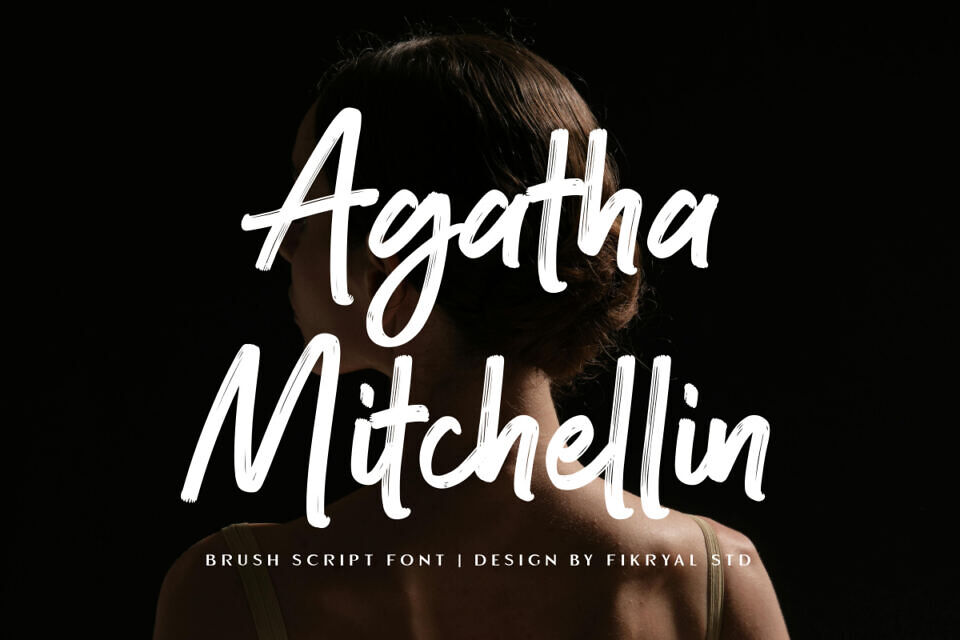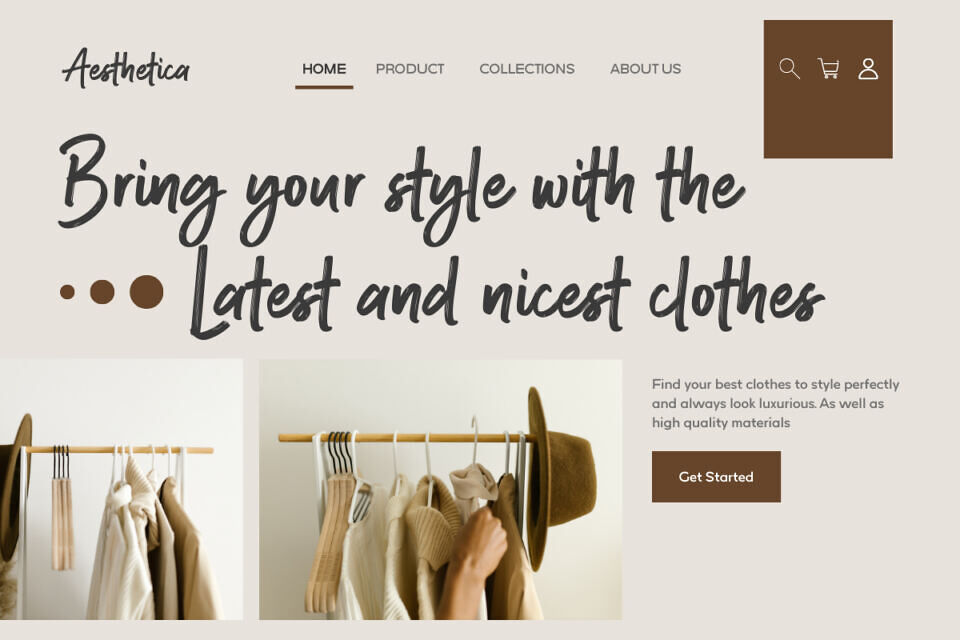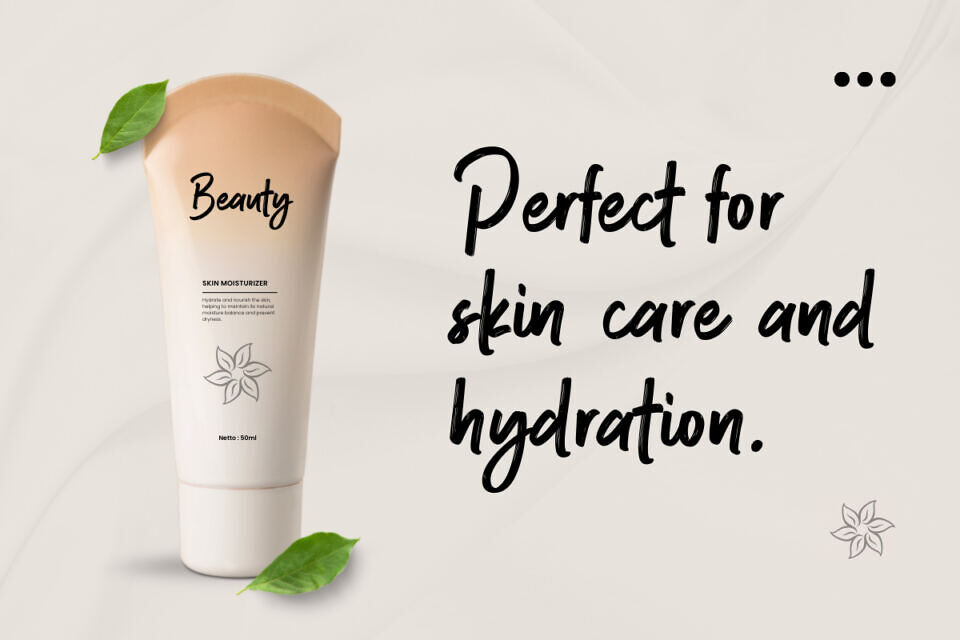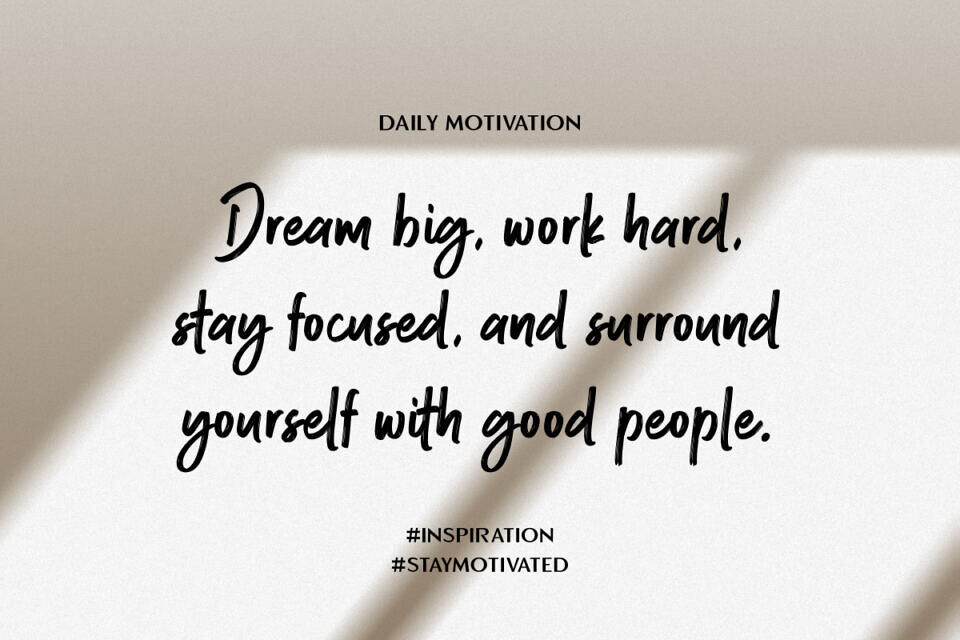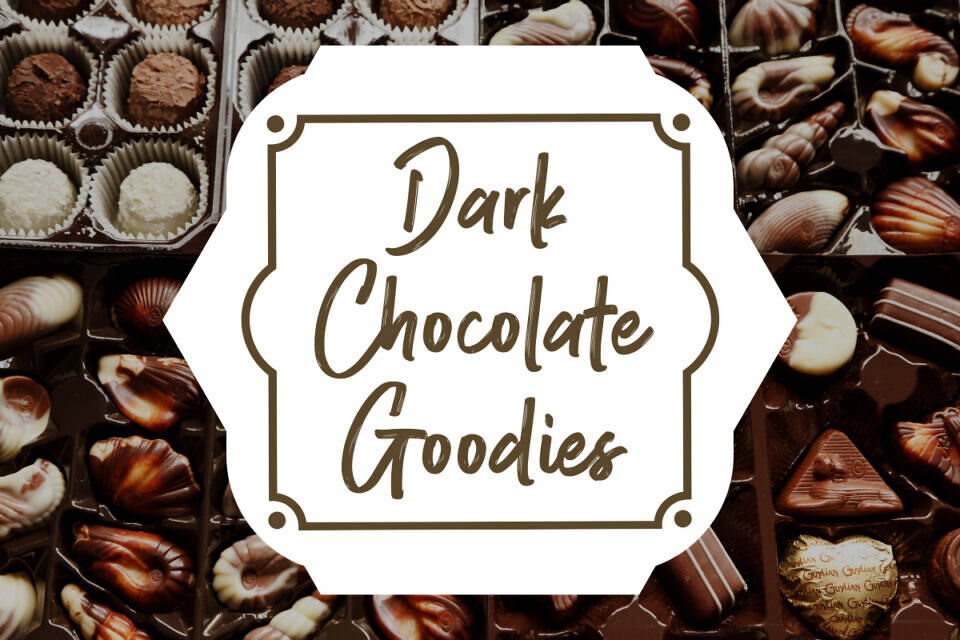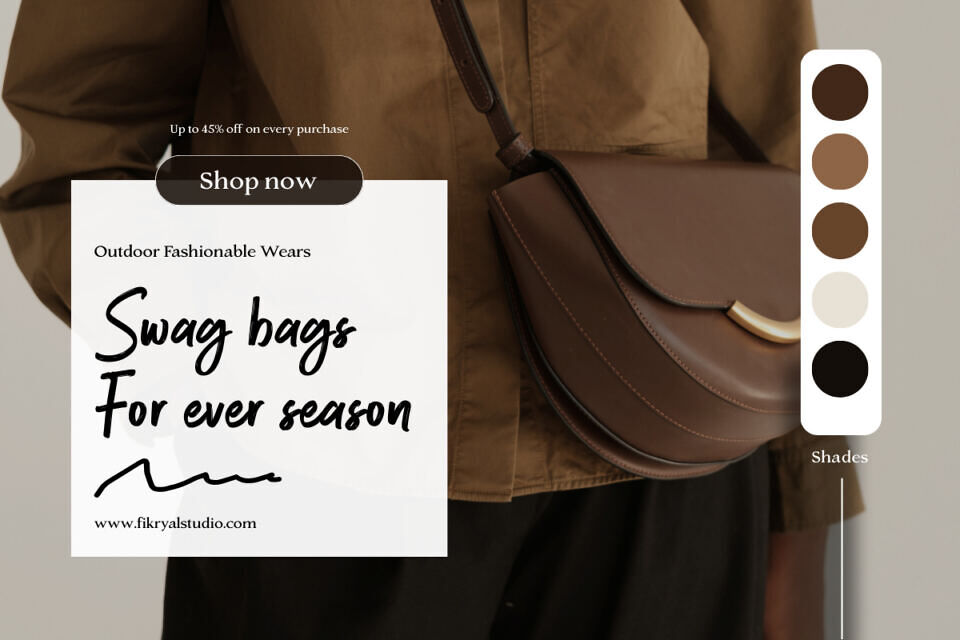
Agatha Mitchellin Font
Agatha Mitchellin is a bold and expressive brush script font inspired by natural hand-painted lettering. Designed with strong brush strokes, dynamic curves, and an organic handwritten flow, this font delivers a powerful and artistic look for modern typography projects.
The textured brush style gives Agatha Mitchellin a handcrafted and authentic feel, making it perfect for designs that need energy, personality, and visual impact. Each letter carries a natural brush movement that creates a lively and stylish composition. Agatha Mitchellin works beautifully for branding, logos, posters, packaging, and social media graphics that require a bold yet artistic handwritten style.